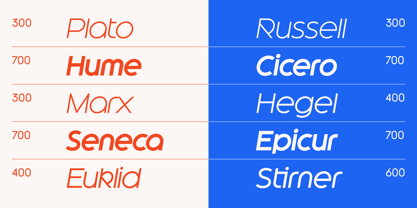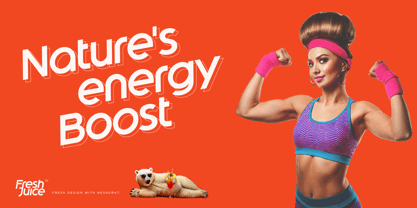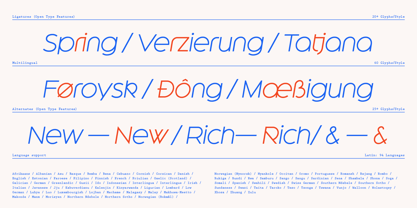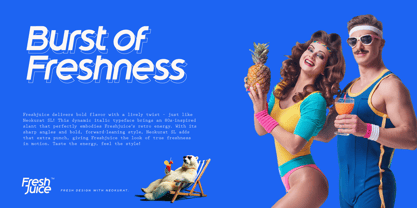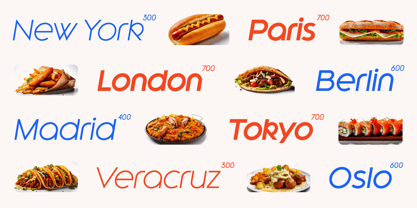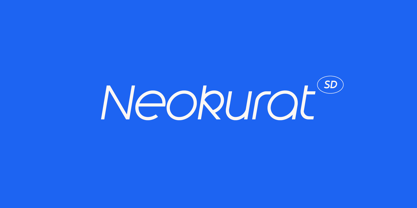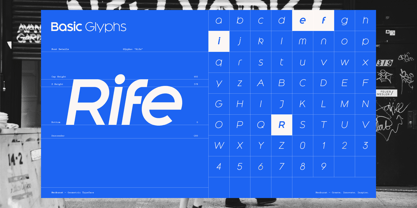
Neokurat SD
Neokurat SD is a geometrically display typeface crafted specifically for impactful logos and headline designs. With its dynamic slanted lines and distinctive clarity, it’s perfect for designers seeking a modern yet sophisticated font. Neokurat SD brings a subtle refinement to any project, making it suitable for both print and digital applications. This version combines the iconic design of Neokurat with the lightness and dynamism of an italic style, available in a range of weights.